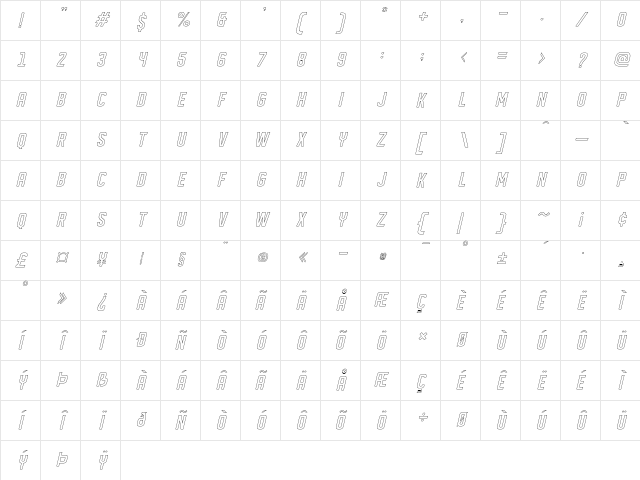
DISPLAYEDObliqueoutline Font Preview
DISPLAYEDObliqueoutline Obliqueoutline
DISPLAYEDObliqueoutline Font Details
| Style | Obliqueoutline |
Design Context for DISPLAYEDObliqueoutline Typeface
DISPLAYEDObliqueoutline is built around its visual character rather than neutral utility — its distinctive forms are designed to make an impression at display sizes. The dynamic lean of this cut emphasises speed and emphasis in any layout.
Font Pairing: Pair with a clean neutral sans-serif for body copy to let DISPLAYEDObliqueoutline's character lead without overwhelming the composition.
Pro Tip: Treat DISPLAYEDObliqueoutline as the centrepiece of your typographic hierarchy. One strong heading set in a decorative face can carry an entire layout.